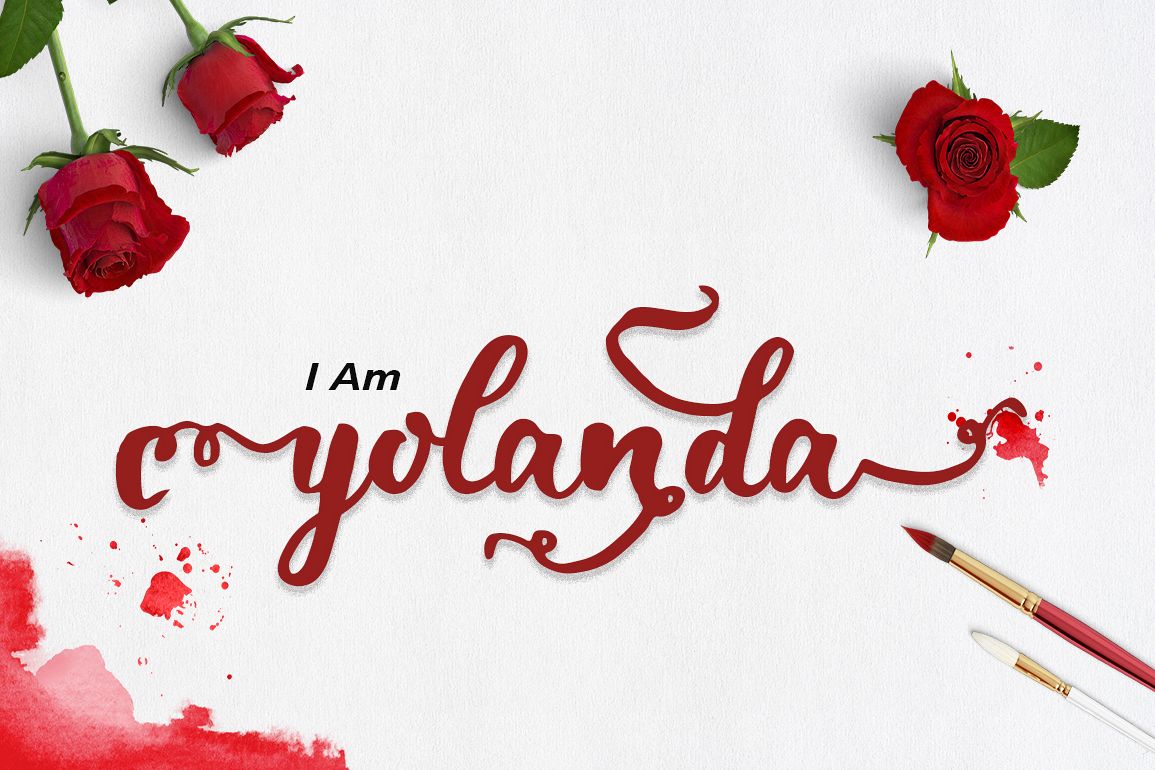
yolanda
Yolanda Script is a hand-written font from real
handwriting. It is carefully developed into a typeface which turn out to
have the smooth curves yet still maintain to look like imperfectly
perfect personal scribble. This handwritten font is made for cards,
prints, logos, branding, and decoration.
Introducing: Yolanda Script !
A script font with a Casual handwritten Script Fnt. Comes with 448 glyphs. Yolanda Script
is perfect for branding projects, homeware designs, product packaging,
use in name card, invitation cards, etc. Simply as a stylish text
overlay to any background image or anything requiring a sprinkle of
elegance.